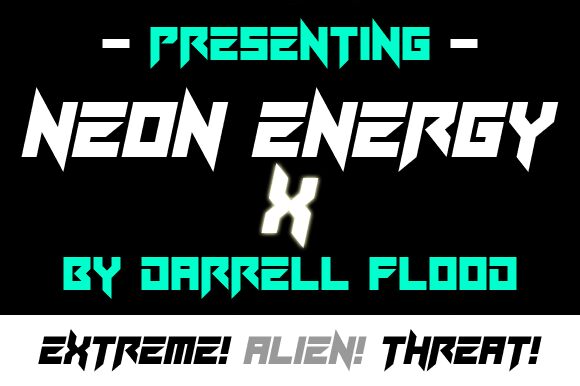
Neon Energy x Italic
Neon Energy x Italic is a mesmerizing display font designed by the talented Hawtpixel. Its bold weight and modern gothic style make it perfect for projects seeking a futuristic vibe. With its sleek, edgy appearance, this font will captivate viewers in logo designs, video game titles, and tech-related websites. Whether you're working on a sci-fi movie poster or an innovative branding project, Neon Energy x Italic will add an electrifying touch to your creations. Let its energetic curves and striking angles illuminate your next design endeavor with unparalleled sophistication.